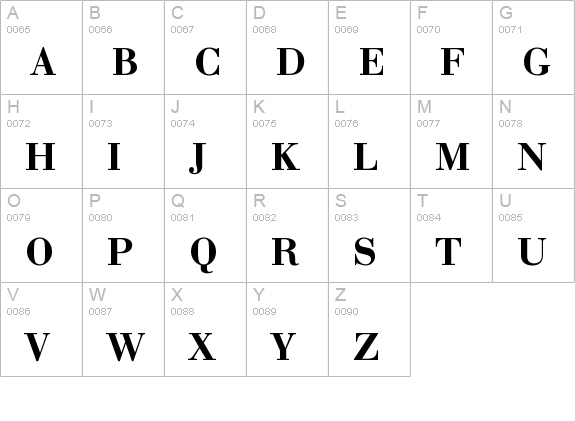
Bodoni-Demi-Regular Font Details
Bodoni-Demi-Regular is a sub-bold, structured variant in the Bodoni typeface family \xE2\x80\x94 well suited to sub-headlines and emphasised passages.
Bodoni-Demi-Regular is a classic and timeless font that embodies sophistication and elegance. Its bold strokes and fine details make it perfect for conveying a sense of luxury and refinement in various design projects. Whether used for headlines, titles, or branding materials, Bodoni-Demi-Regular commands attention and exudes a sense of authority. The font's strong presence on the page makes it a popular choice for designers looking to make a bold statement. What's even better is that Bodoni-Demi-Regular is available for free download at FontsMarket.com. This means that you can access this exquisite font without any cost, making it a valuable addition to your font library. With its combination of beauty and accessibility, Bodoni-Demi-Regular is a versatile typeface that can elevate any design project to new heights.